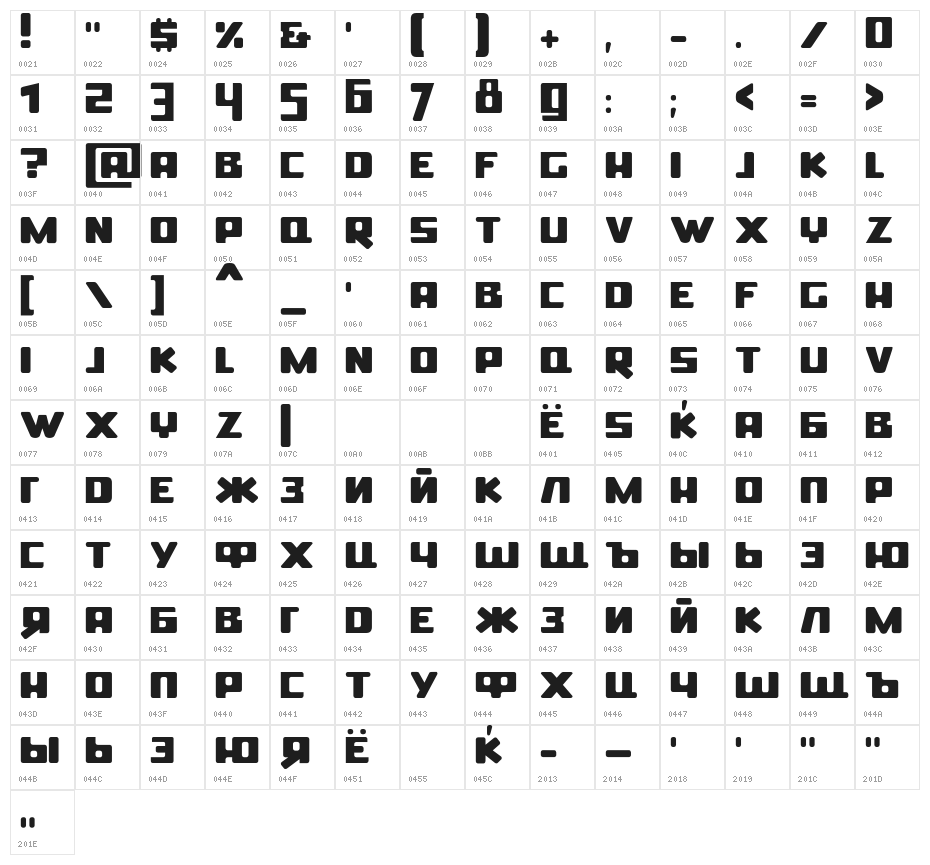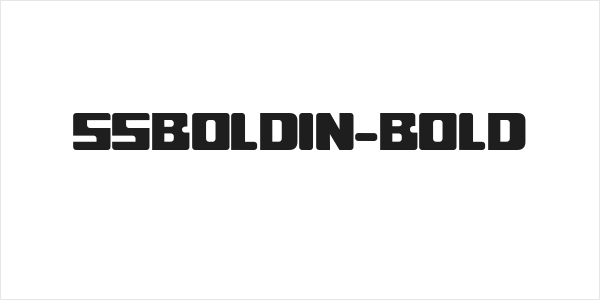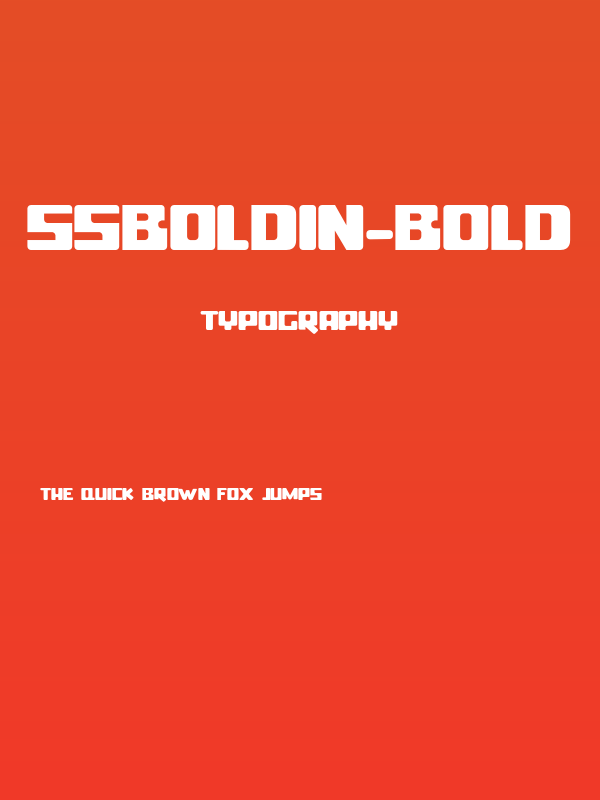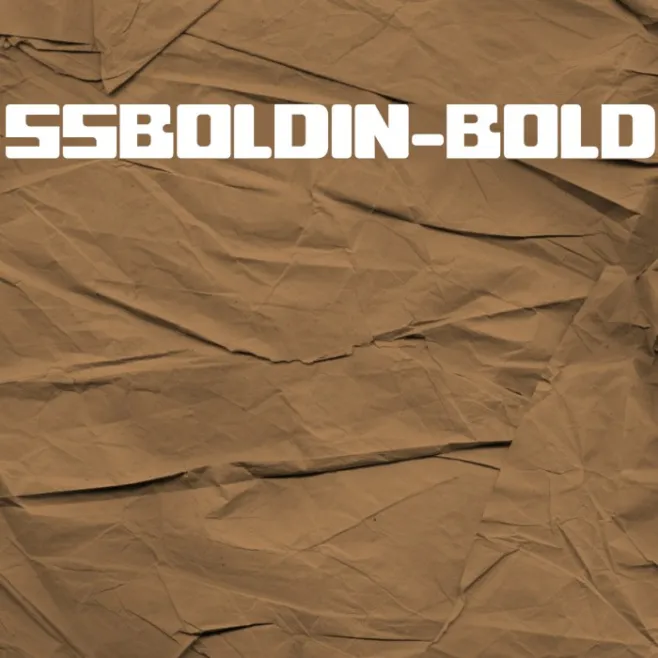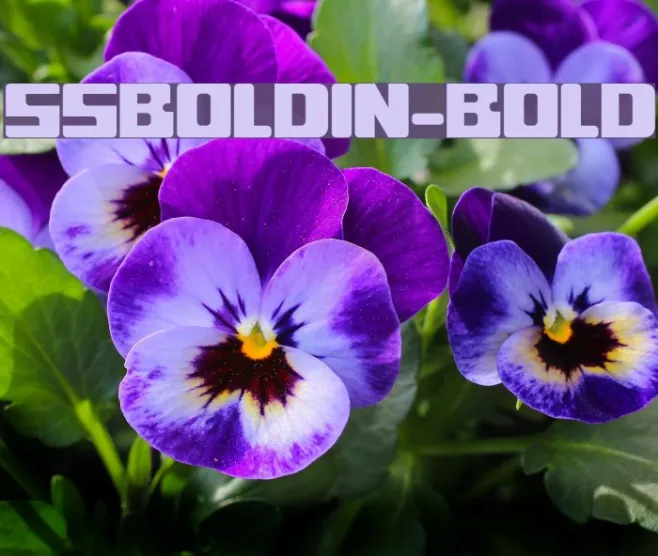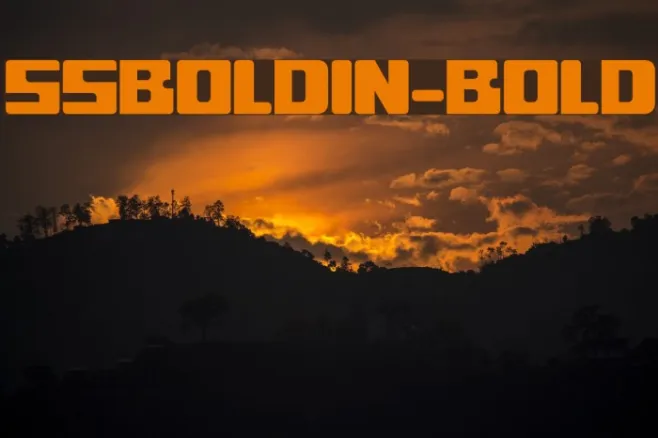
ssboldin-Bold Font
ssboldin-Bold Description
This bold, geometric font features a strong, block-like appearance with uniform stroke widths. The characters are designed with a modern, futuristic aesthetic, characterized by sharp angles and a consistent, heavy weight throughout. The uppercase and lowercase letters maintain a cohesive style, with a slightly condensed form that enhances its boldness. The numerals and special characters follow the same design principles, ensuring a seamless integration across all text elements. This font's distinct and assertive style makes it ideal for attention-grabbing designs.
| Proposed Projects | Ideal for branding, posters, headlines, and any design requiring a strong visual impact. |